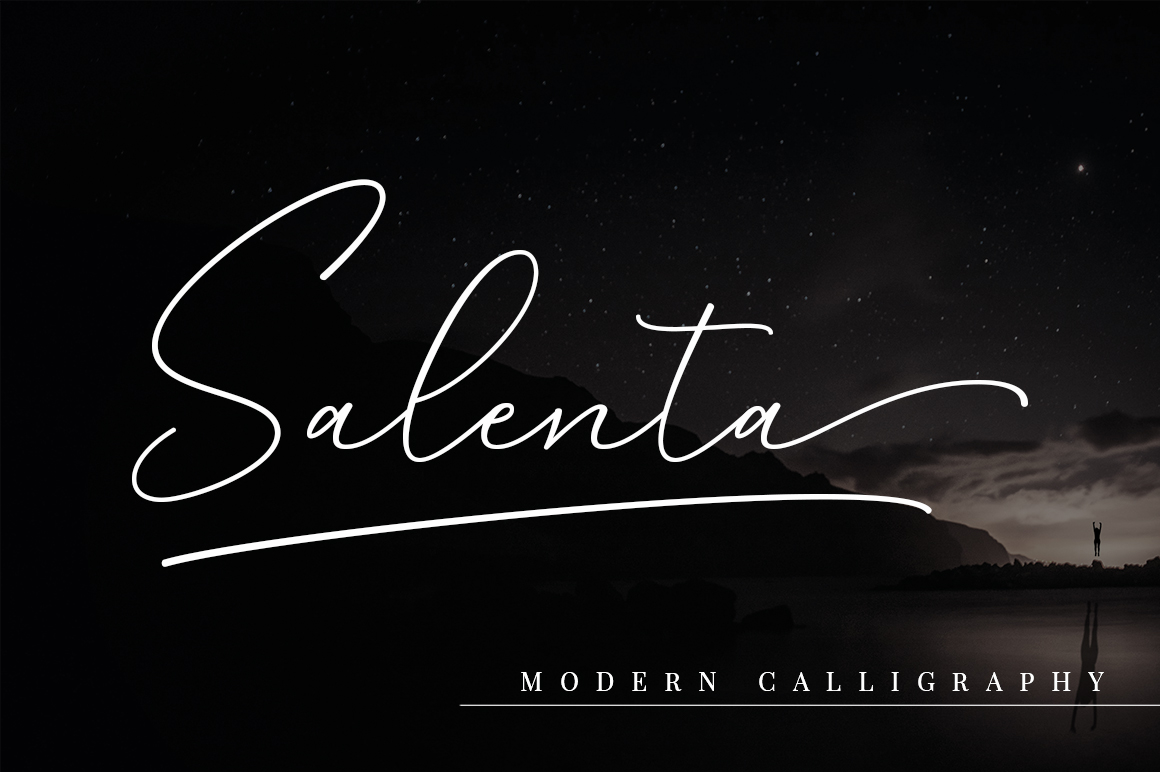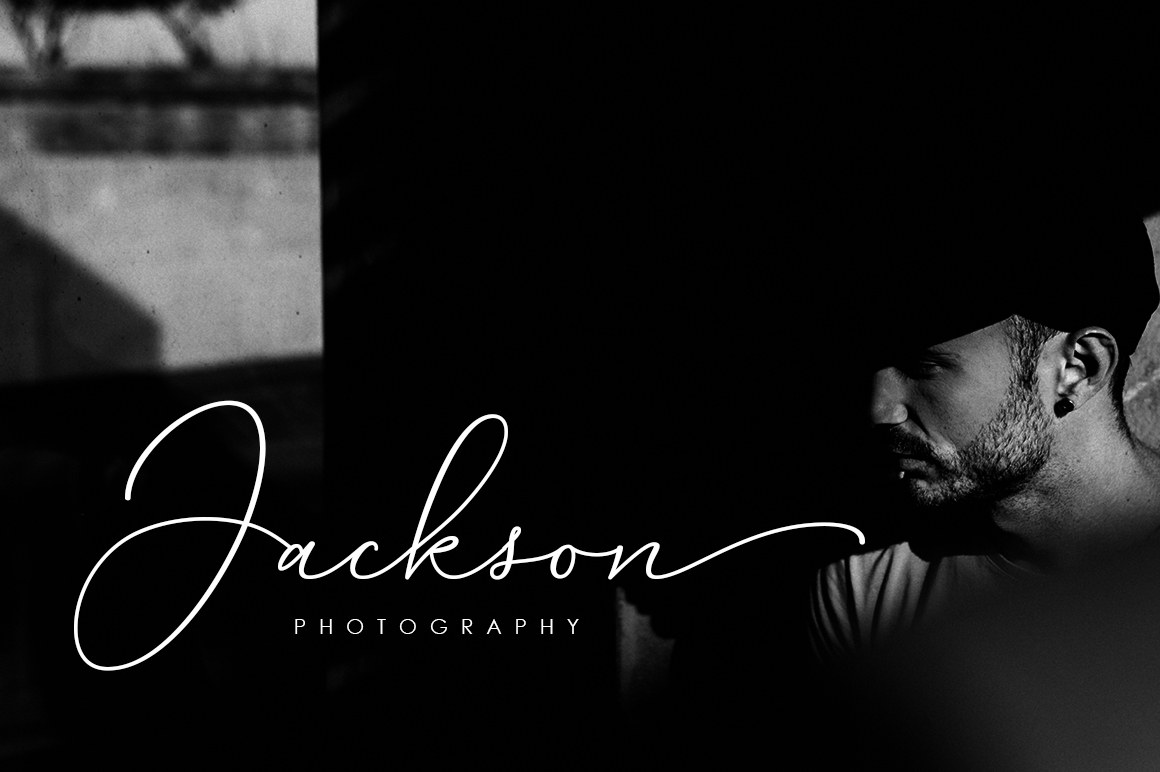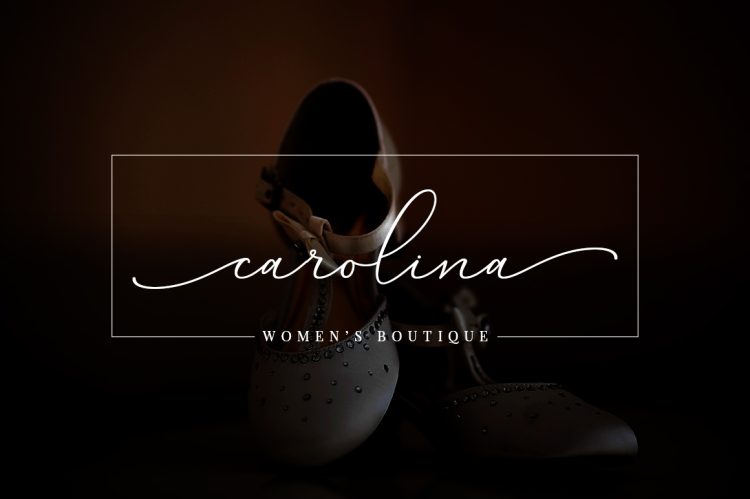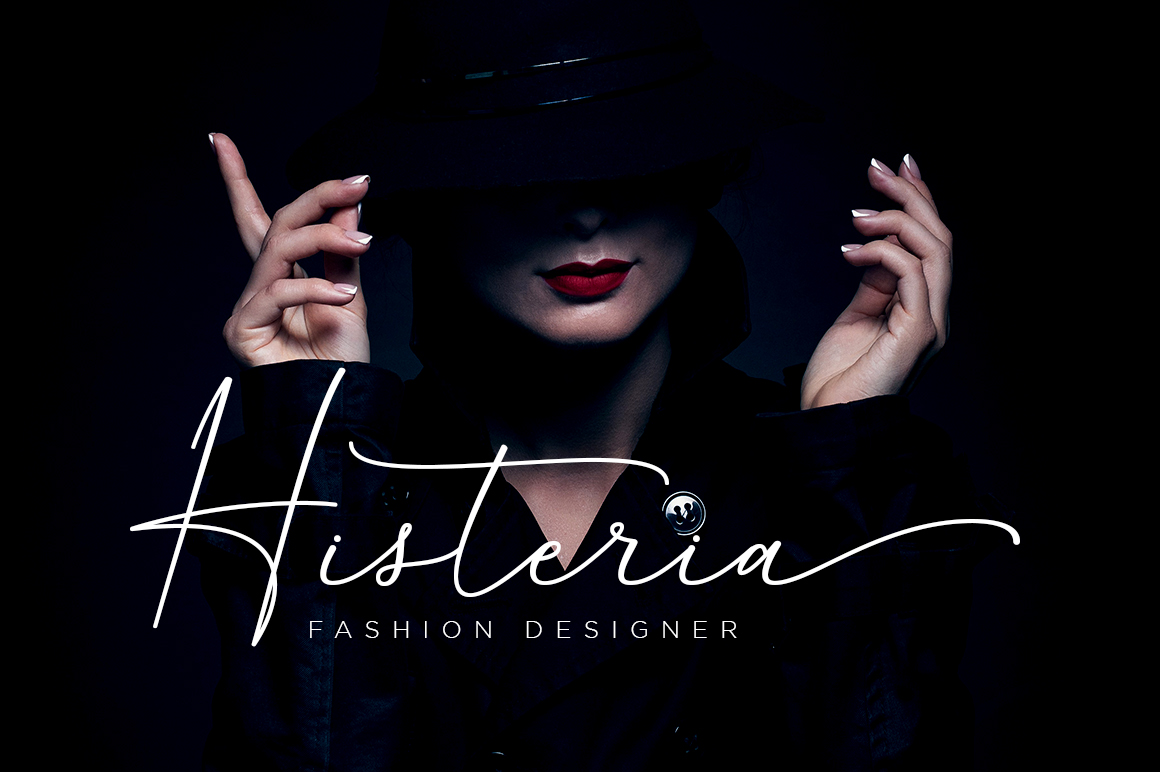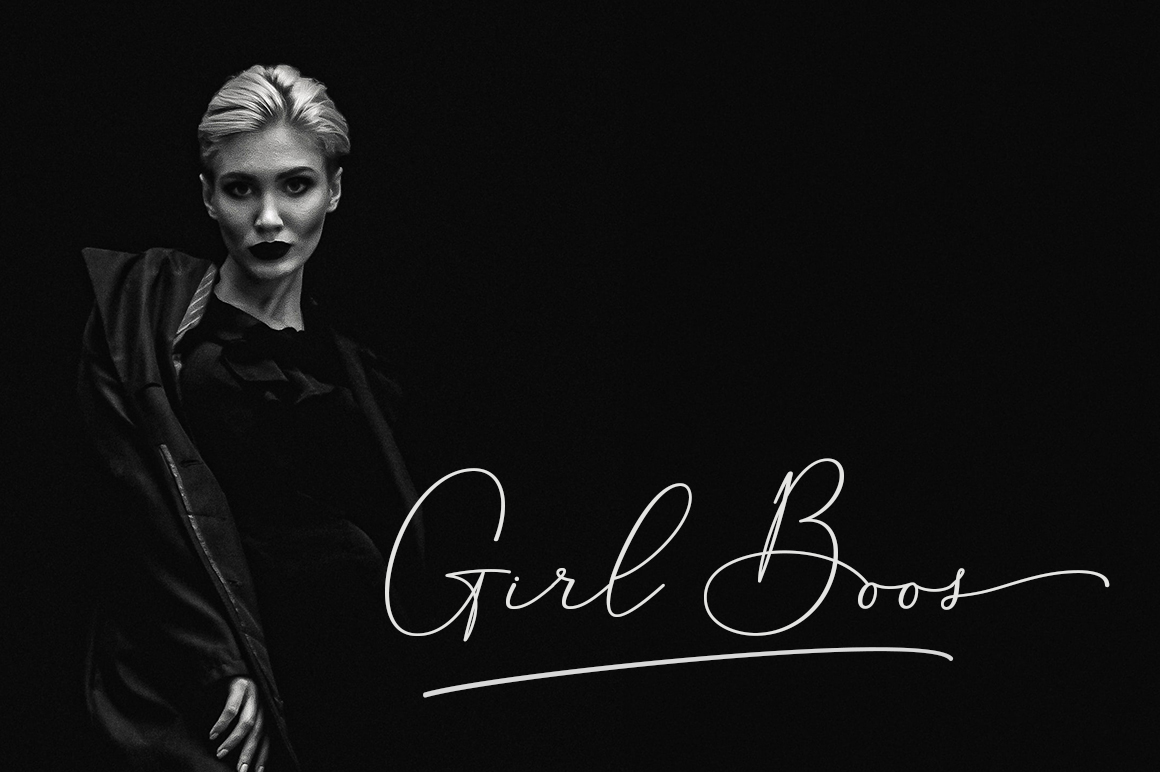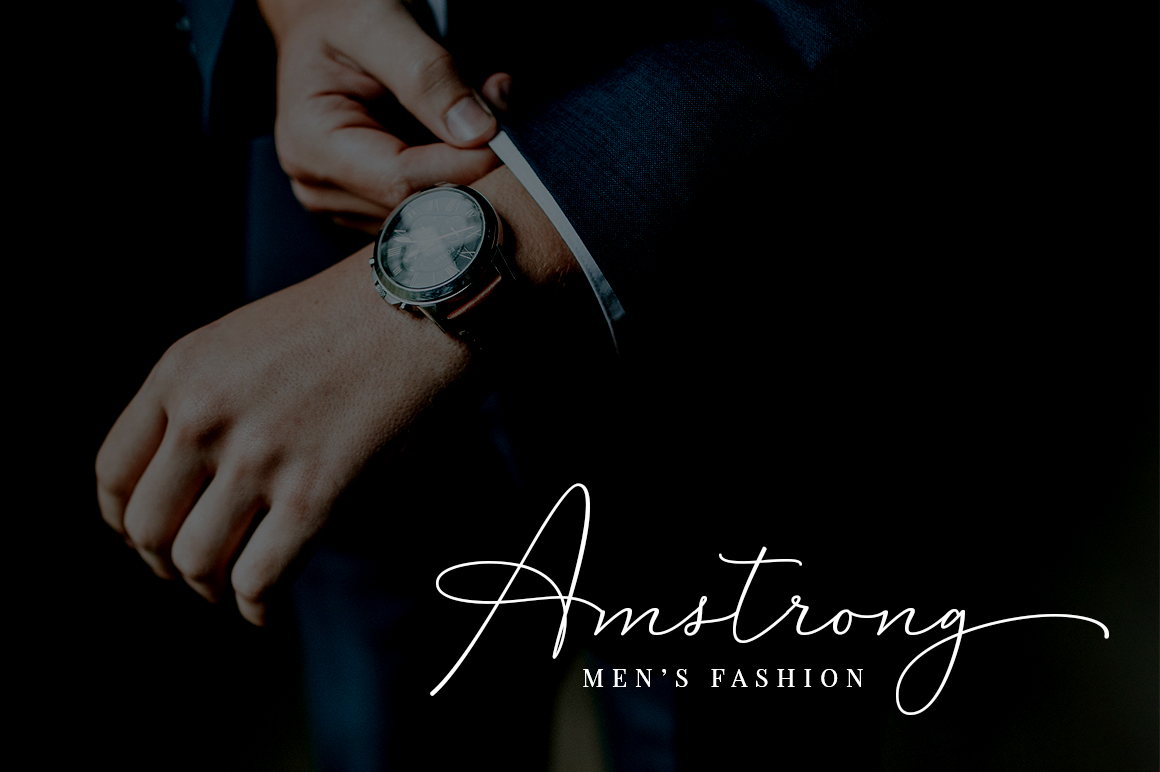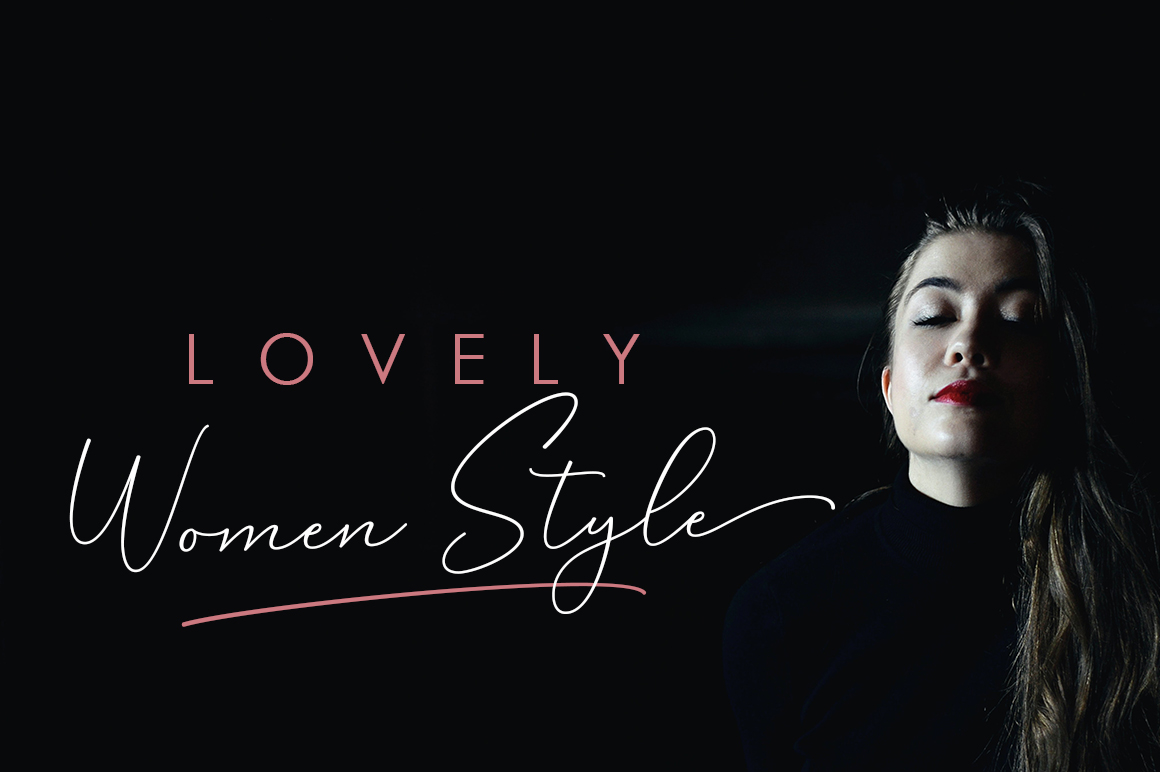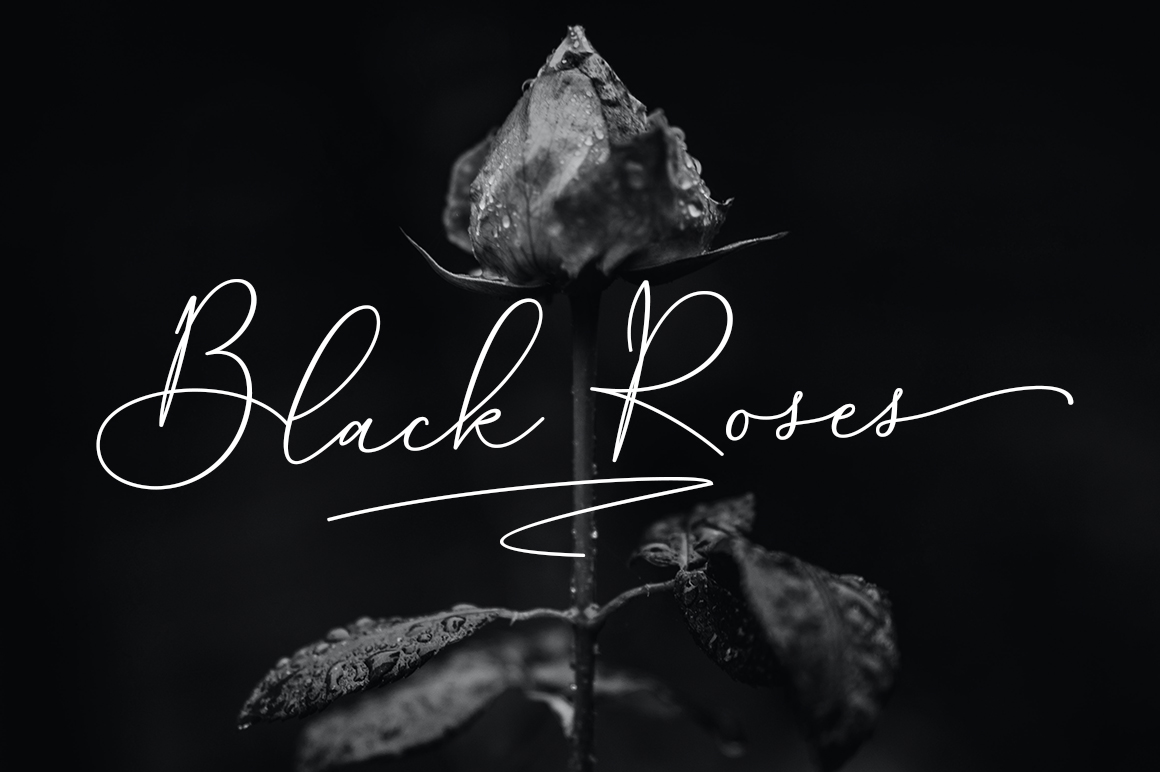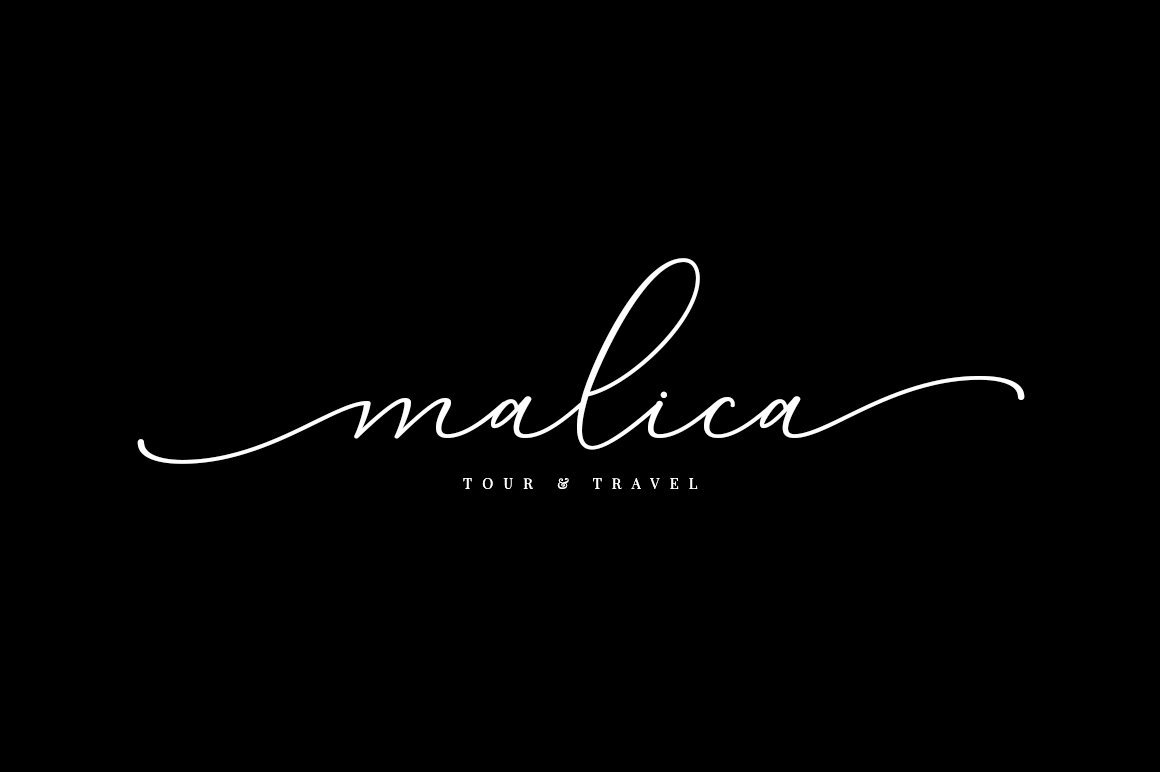
Salenta is a new beautiful calligraphy font, Salenta is a casual, pretty and soft font with subtle and charming ink strokes. Salenta is perfect for elegant logos, signatures, high-end packaging, wedding stationery, websites, and any other project that requires a handwritten and luxurious touch.
Salenta features OpenType stylistic alternates, ligatures and International support for most Western Languages is included. To enable the OpenType Stylistic alternates, you need a program that supports OpenType features such as Adobe Illustrator CS, Adobe Indesign & CorelDraw X6-X7, Microsoft Word 2010 or later versions.